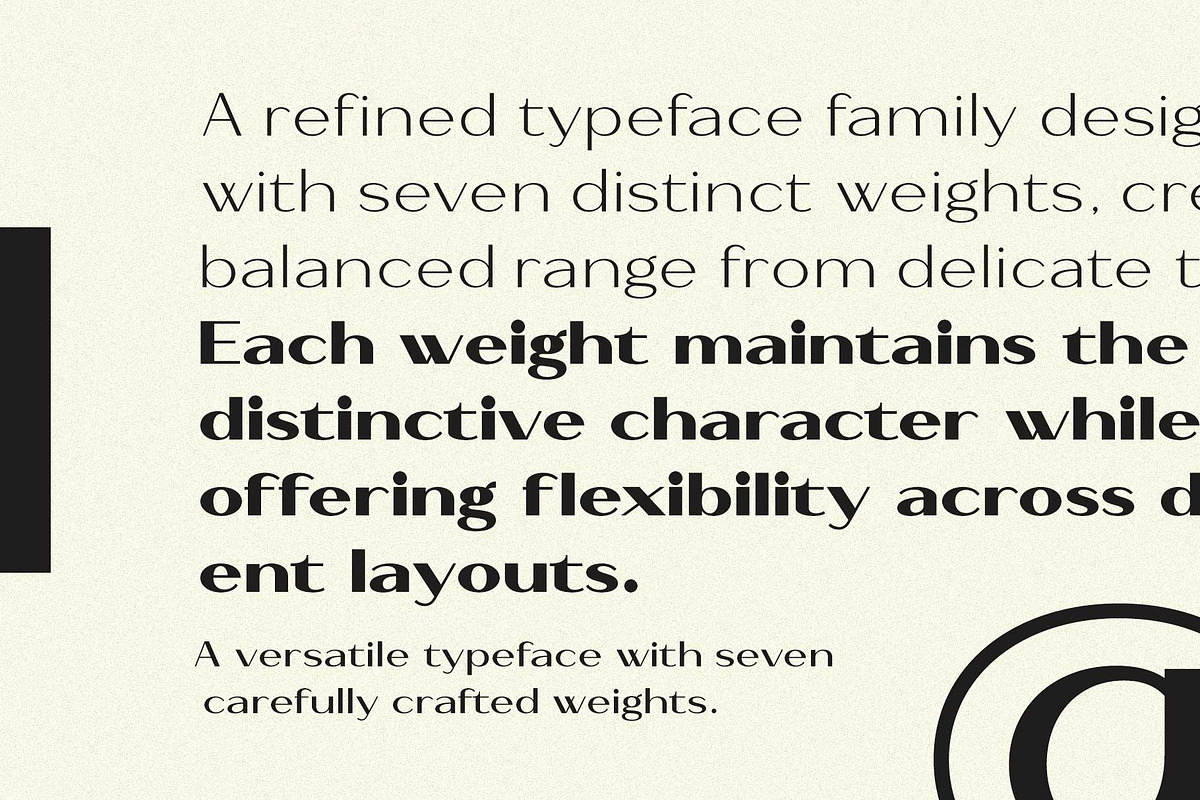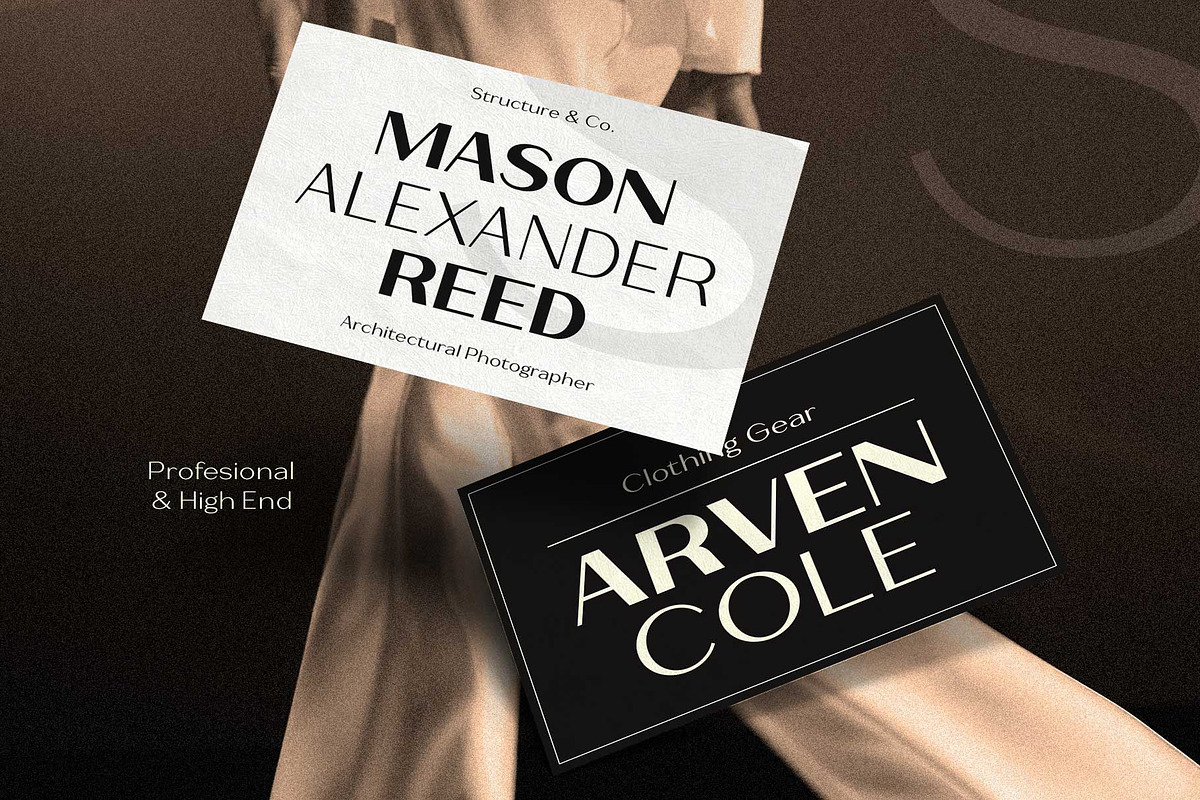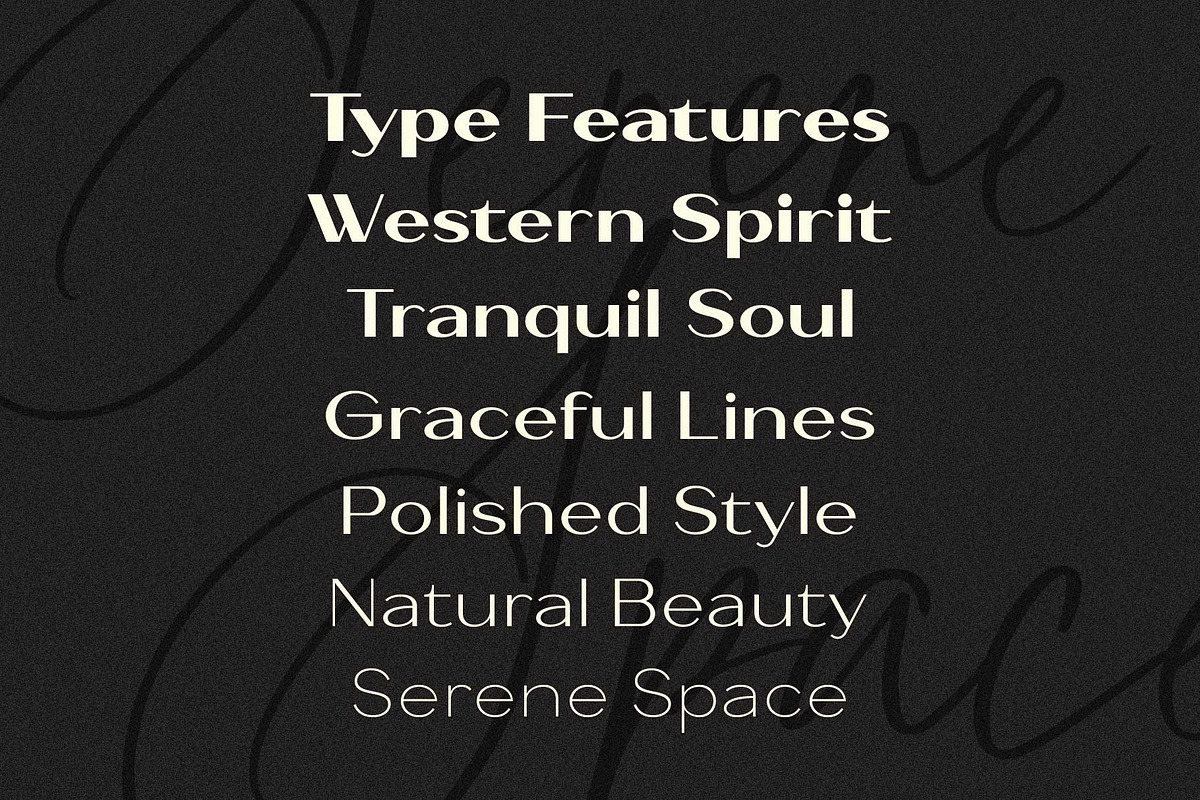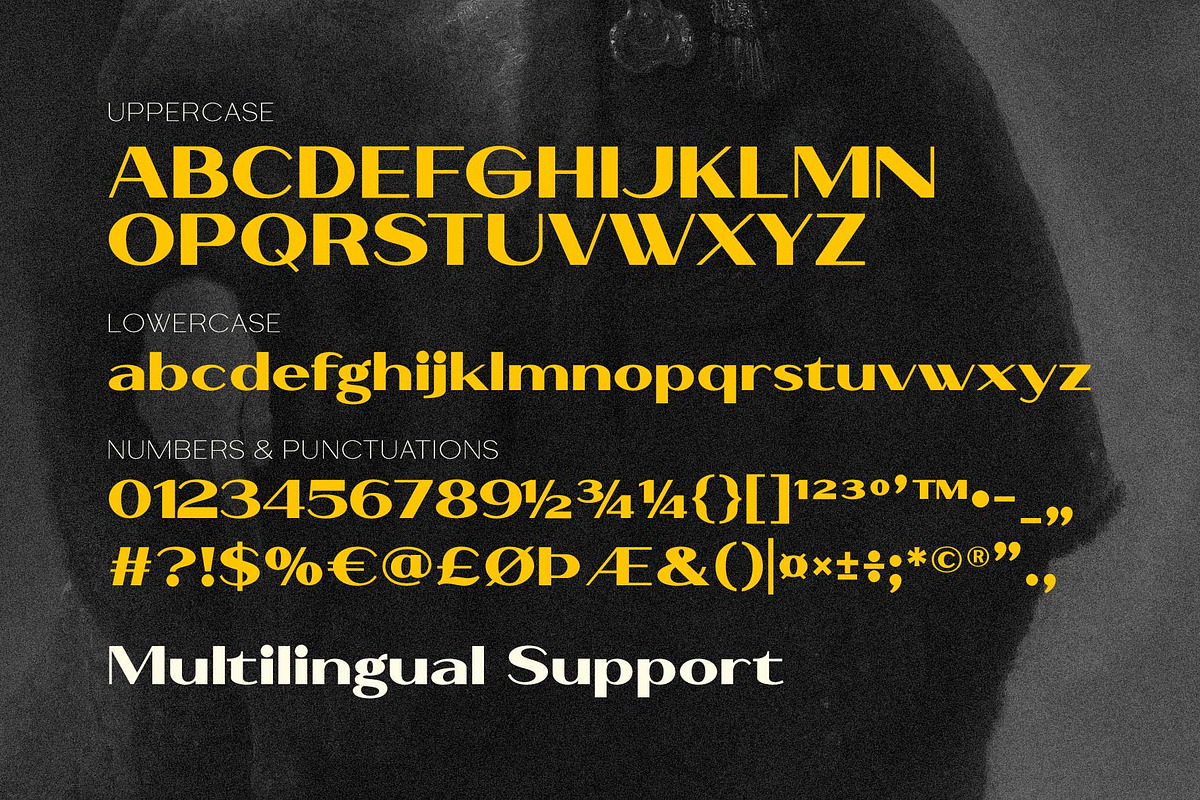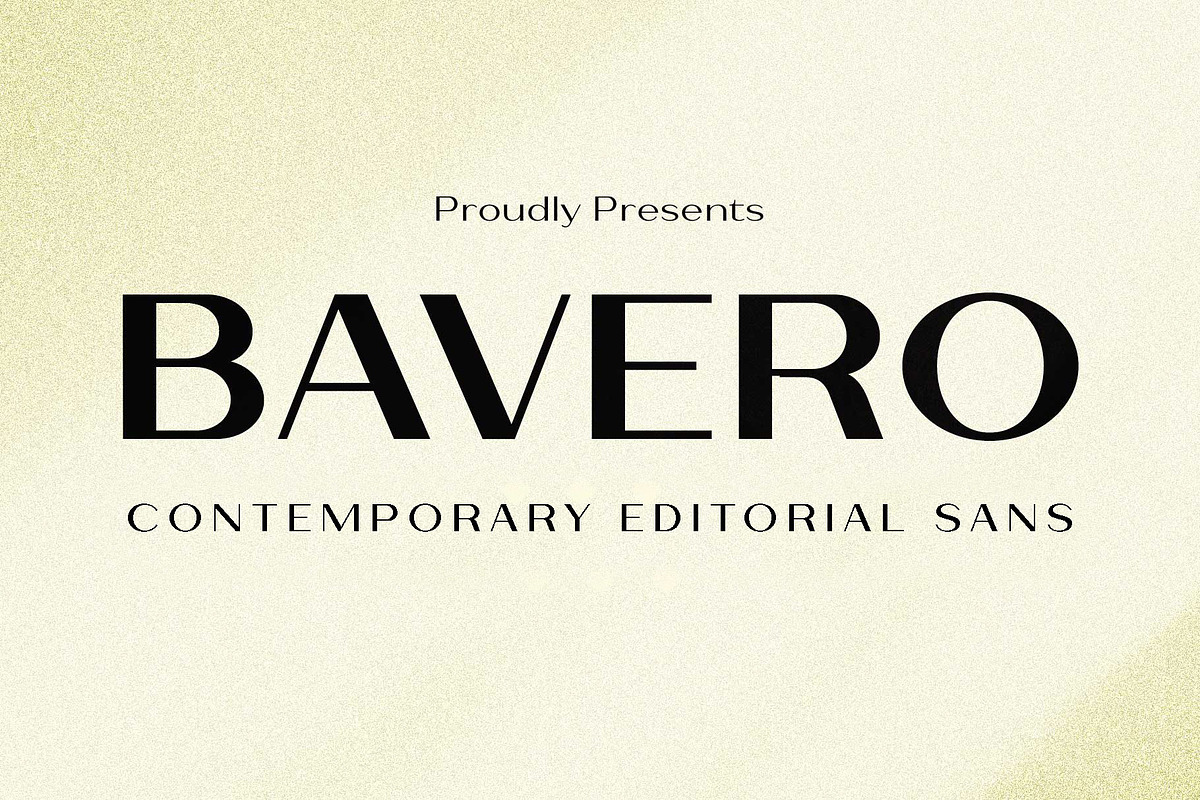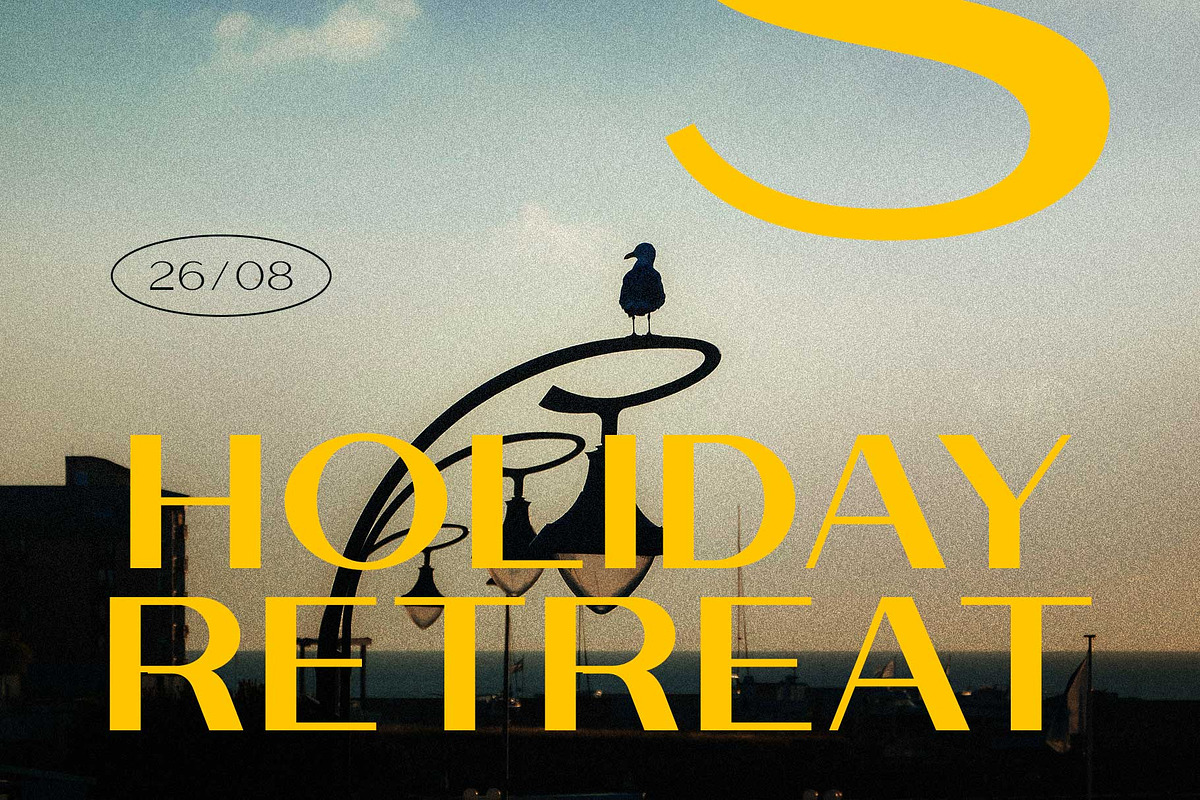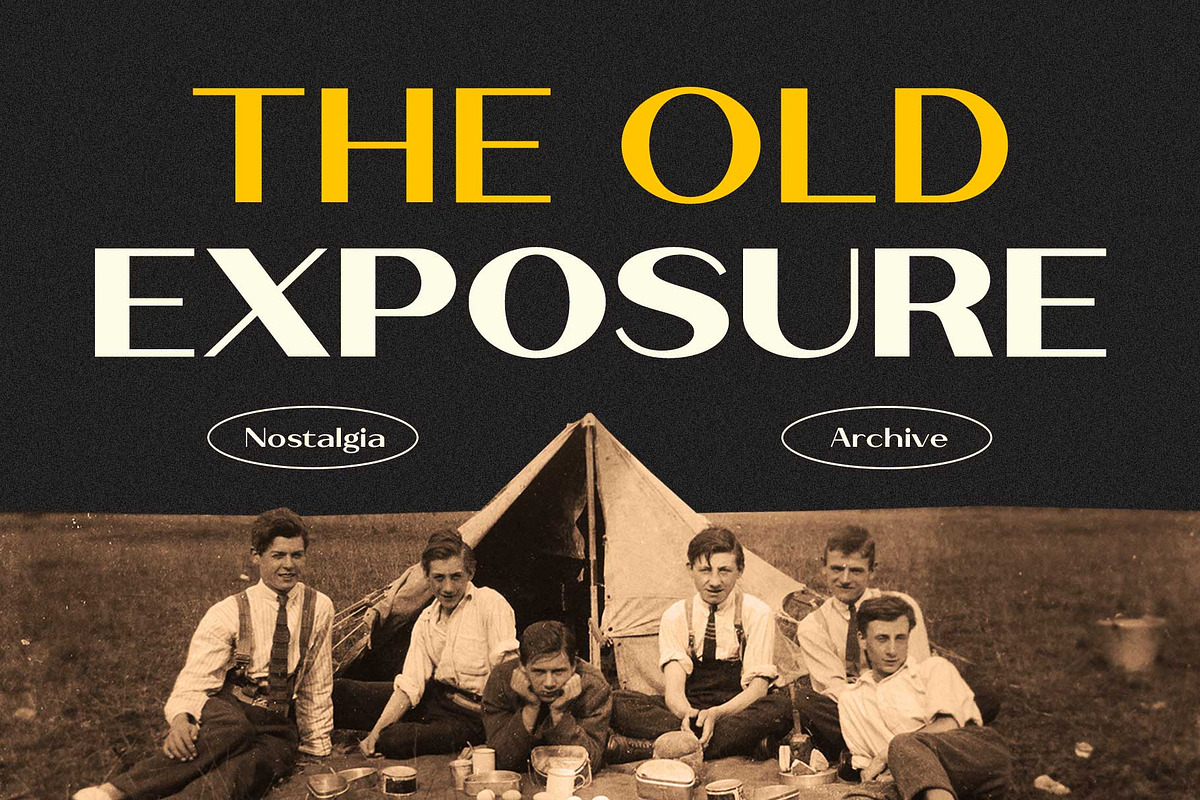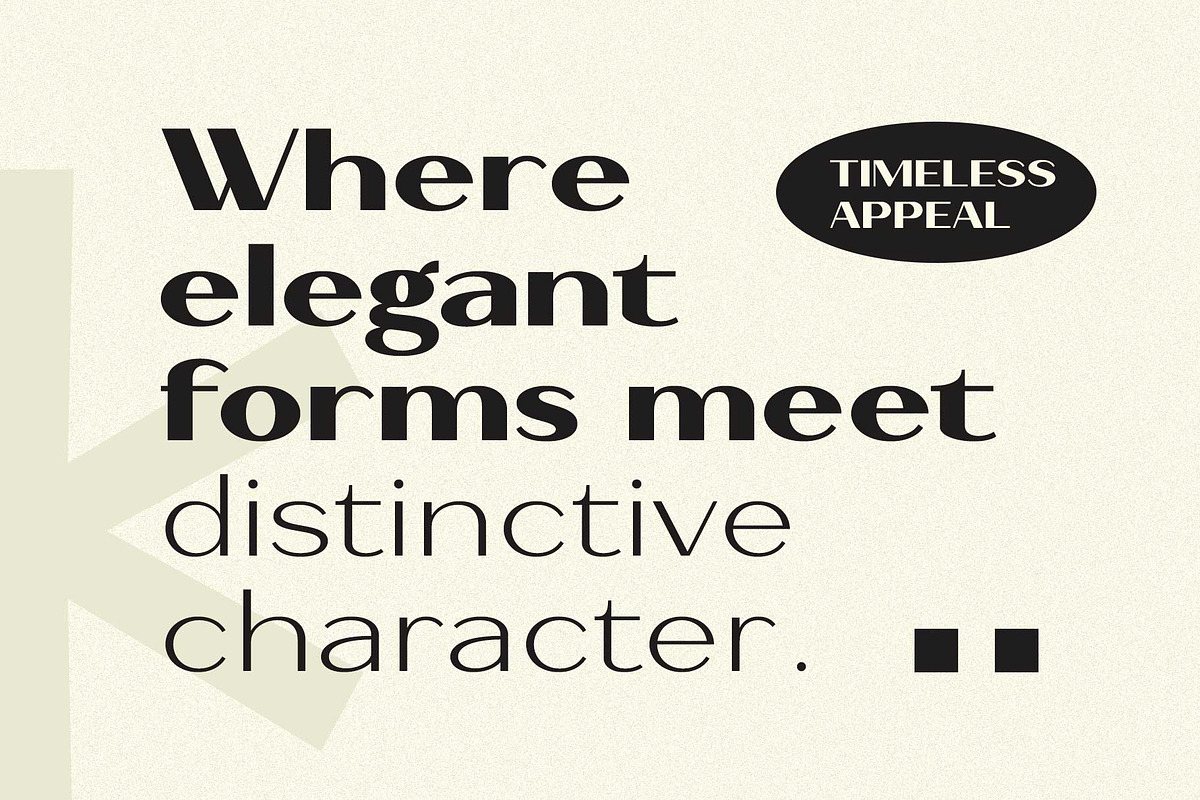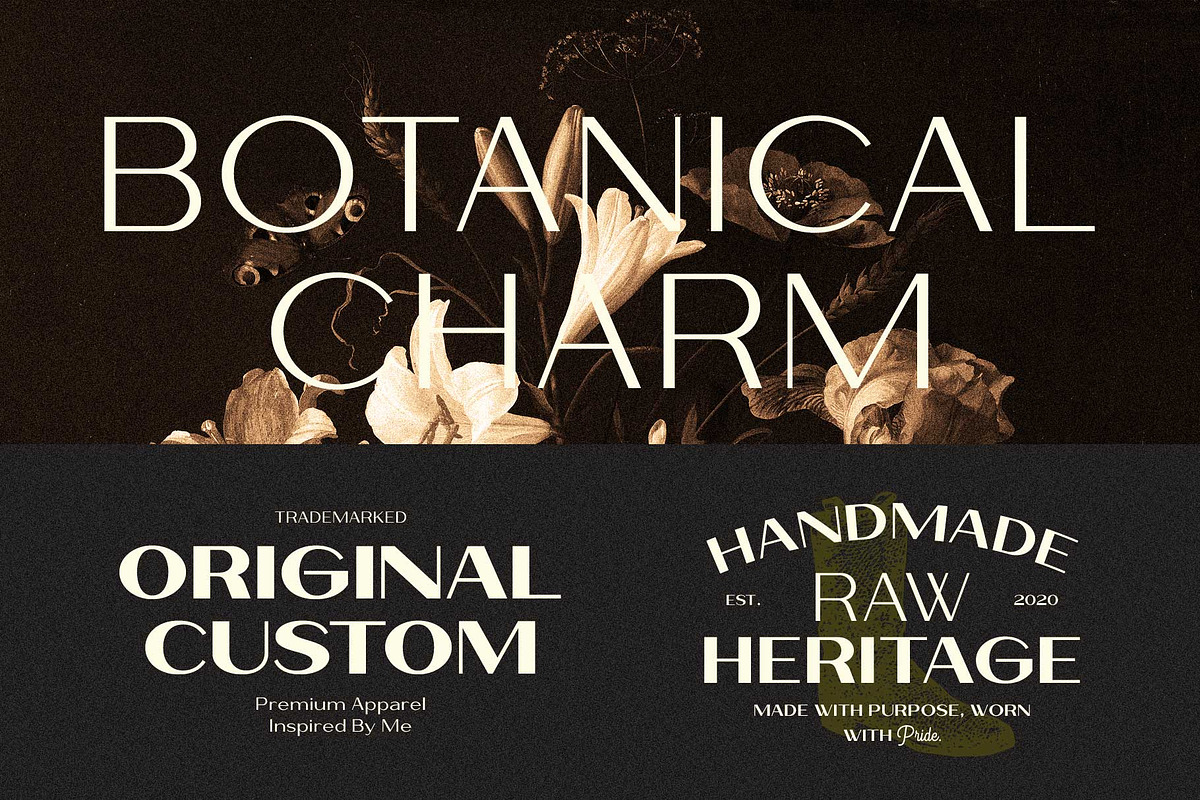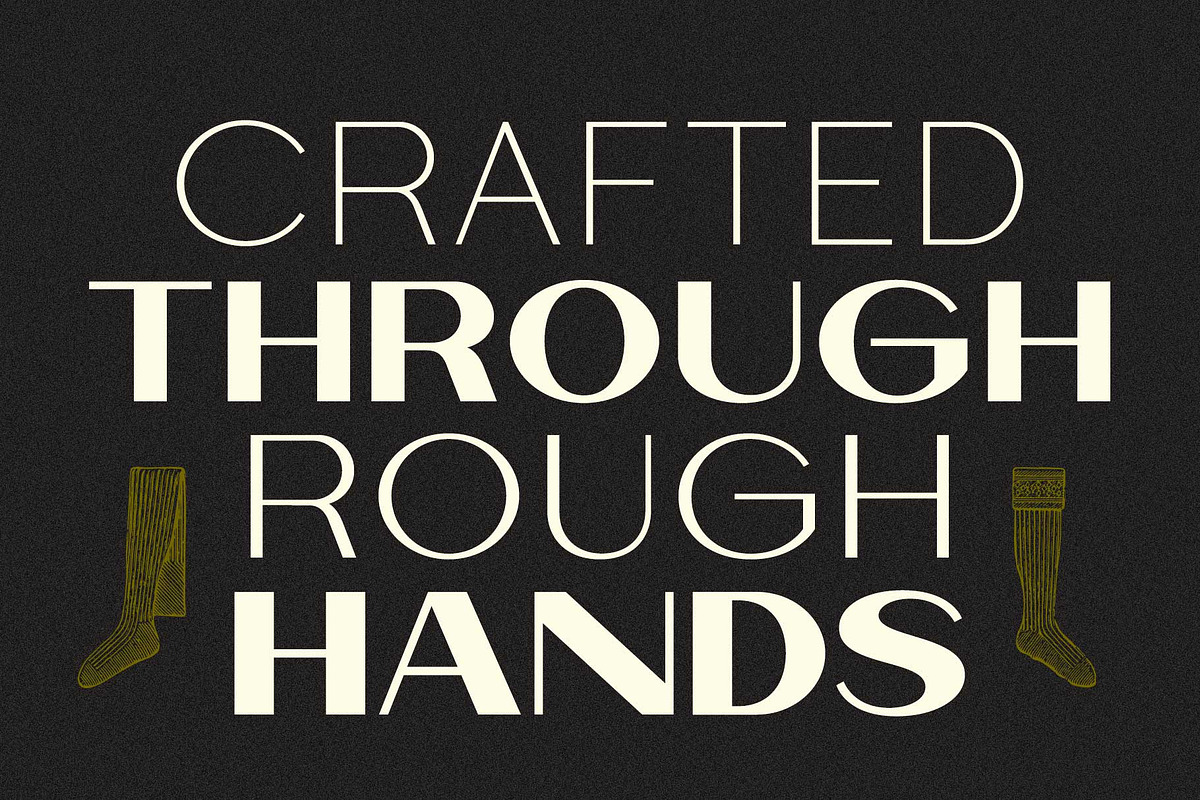
Bavero - Contemporary Sans Family
Meet Bavero, a high-contrast sans serif with an elegant twist.
Bavero combines clean, contemporary shapes with dramatic thick-and-thin strokes, creating a look that feels both sophisticated and distinctive. It has that polished editorial feel, but still has enough personality to work beyond the usual luxury or fashion aesthetic.
The family comes in 7 weights, giving you plenty of room to play — from thin, airy typography to bold and commanding headlines.
Perfect for logos, fashion brands, magazines, posters, packaging, architecture, photography, apparel, and modern editorial layouts.
Bavero is clean, elegant, and a little unusual — just enough to make your typography stand out.